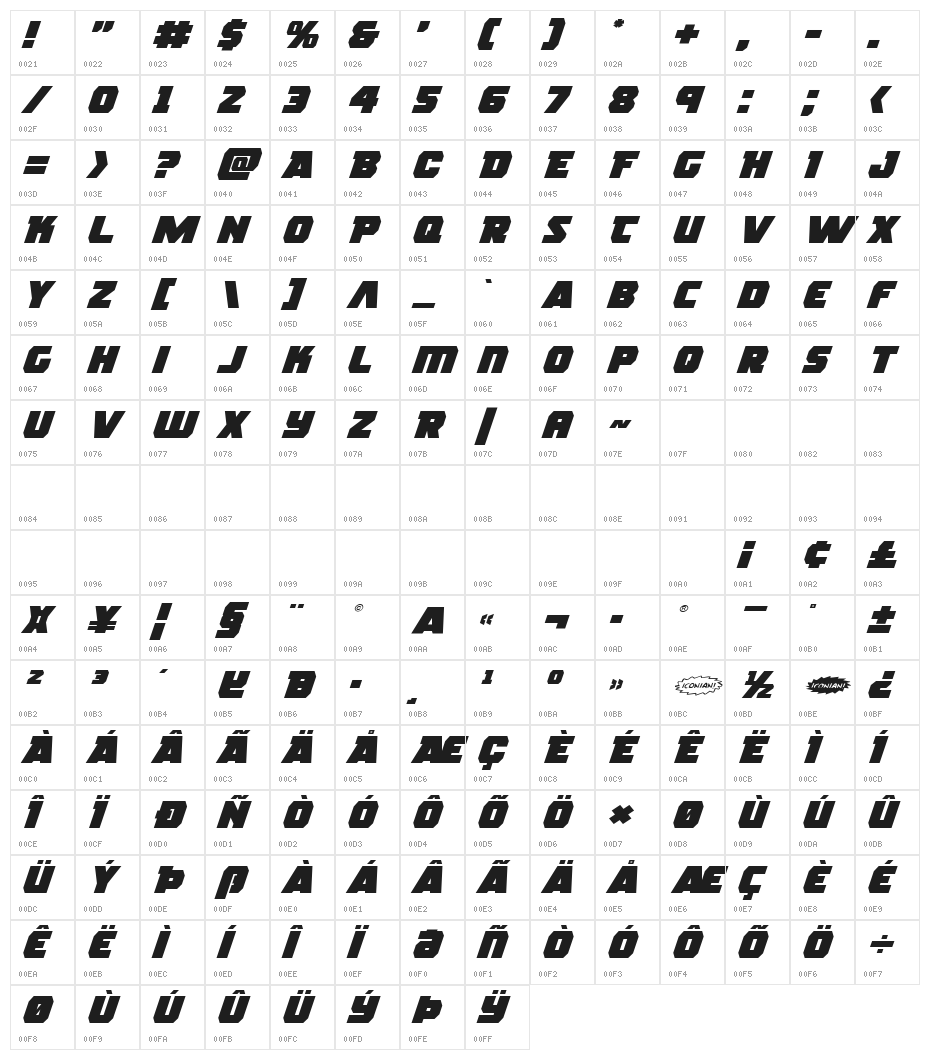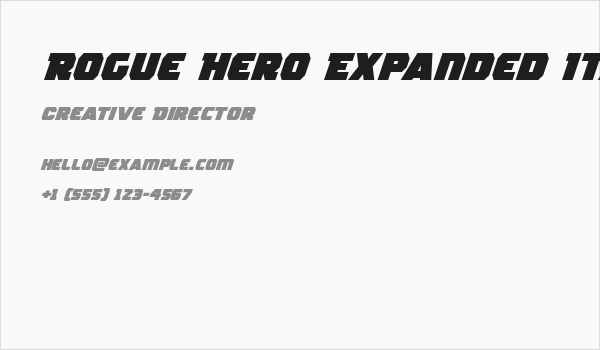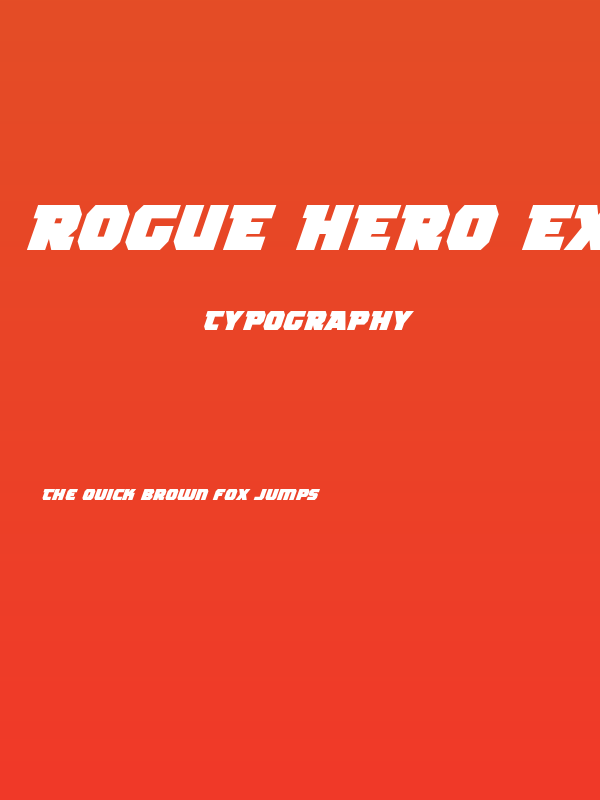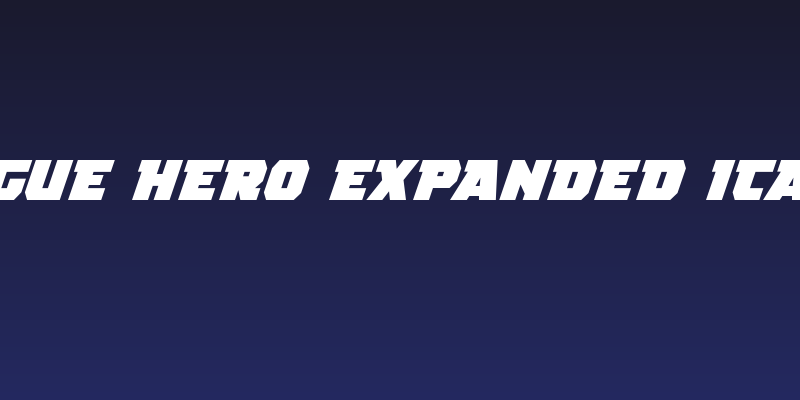
Rogue Hero Expanded Italic Font
Rogue Hero Expanded Italic Description
This font features a bold and dynamic style with an italic slant, giving it a sense of movement and energy. The characters are expanded, providing a wide stance that enhances readability while maintaining a strong visual impact. The angular cuts and sharp edges contribute to a modern and assertive appearance. The uppercase and lowercase letters are consistent in their boldness, and the numerals and special characters follow the same design principles, ensuring uniformity across all glyphs.
| Proposed Projects | Ideal for sports branding, action movie posters, video game titles, and dynamic advertising campaigns. |